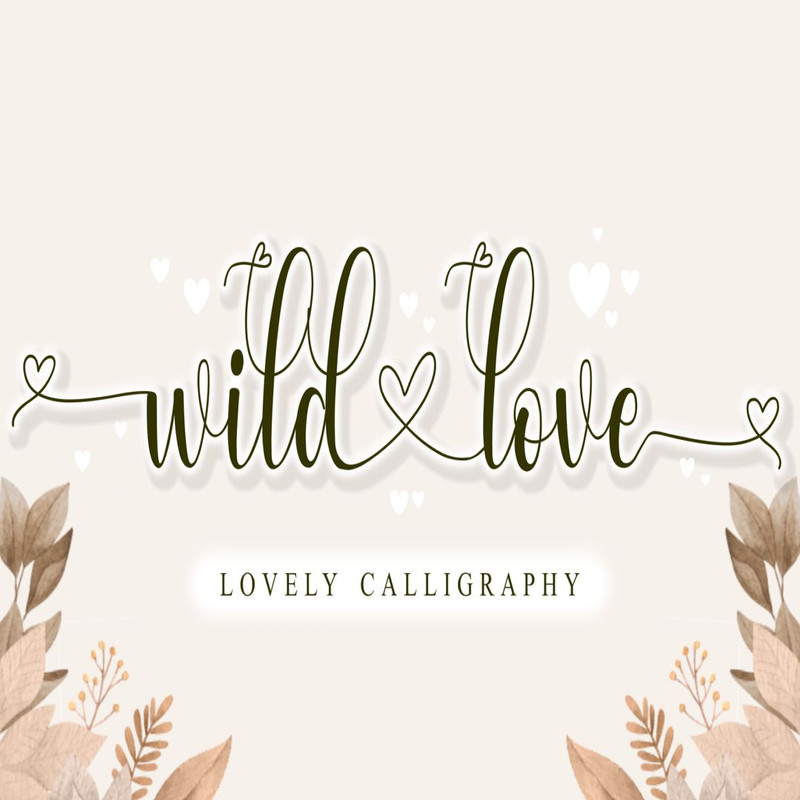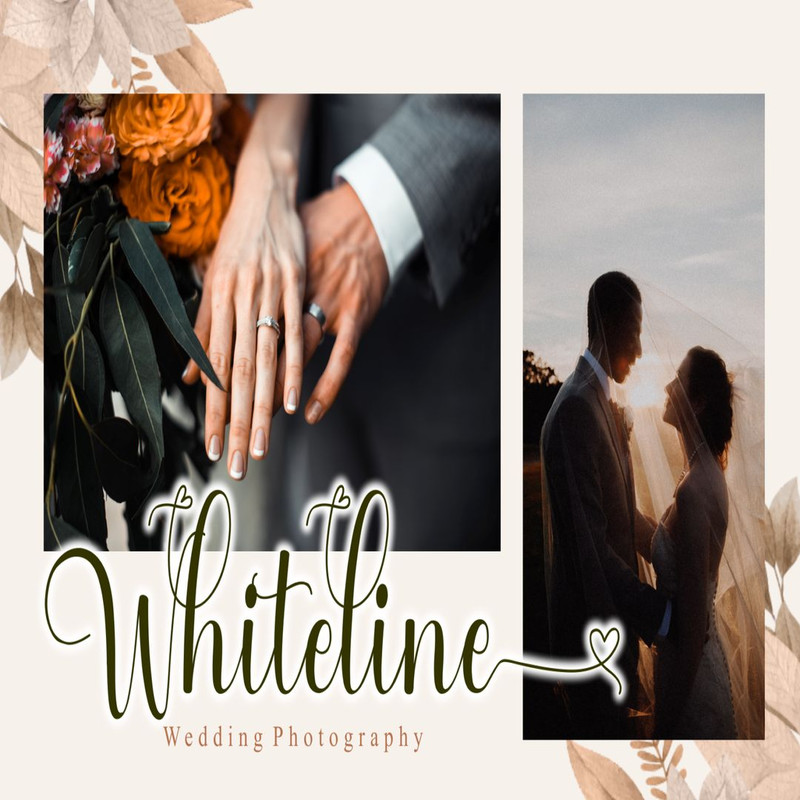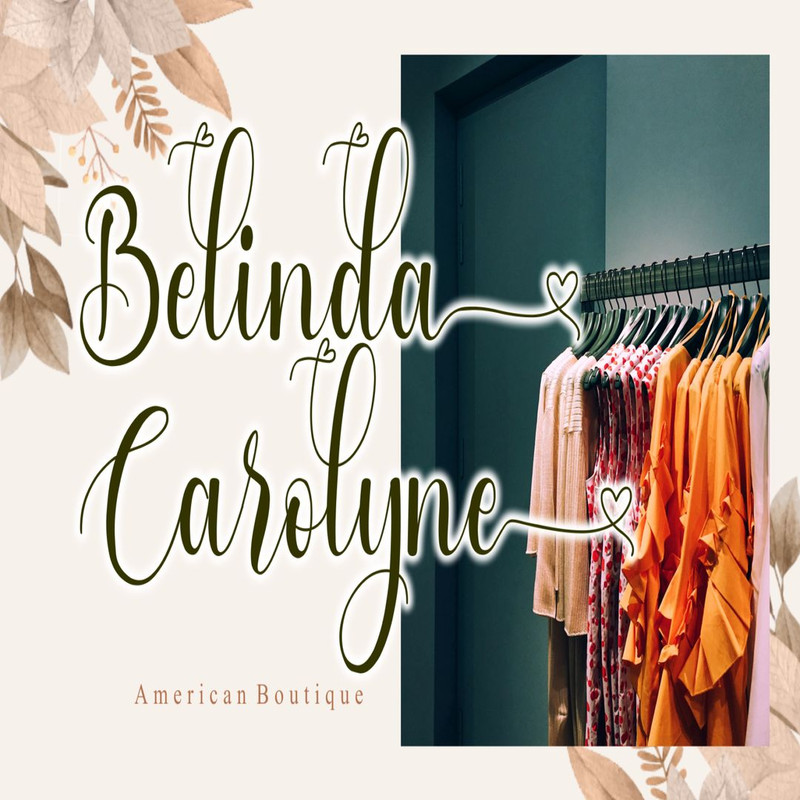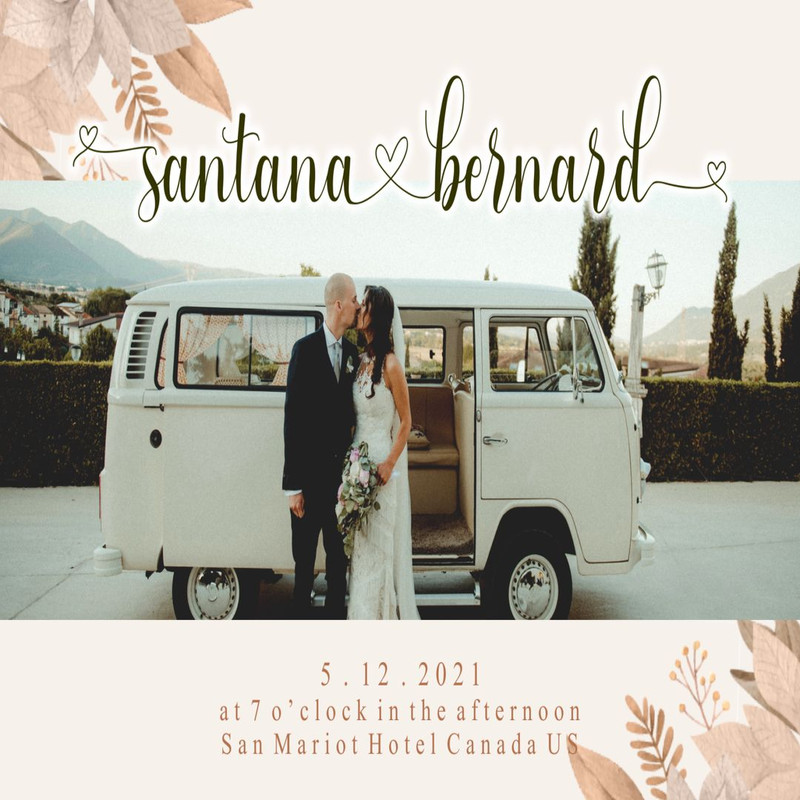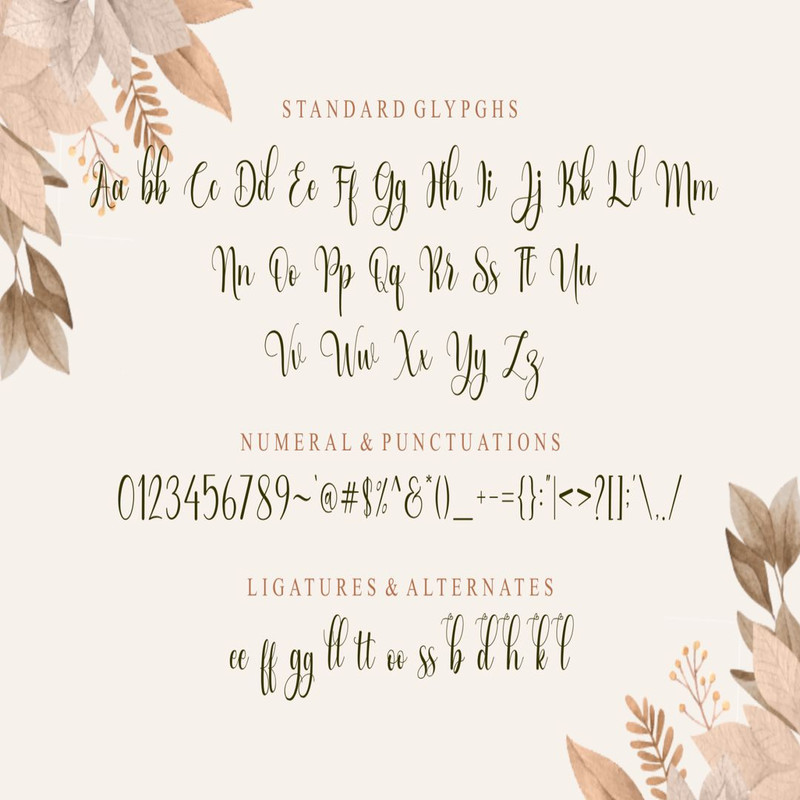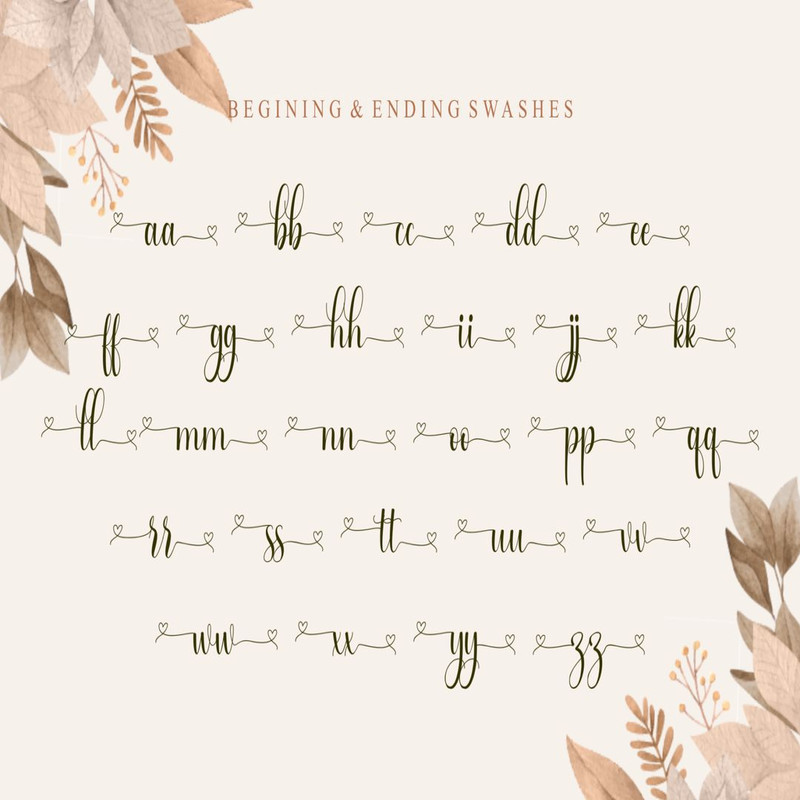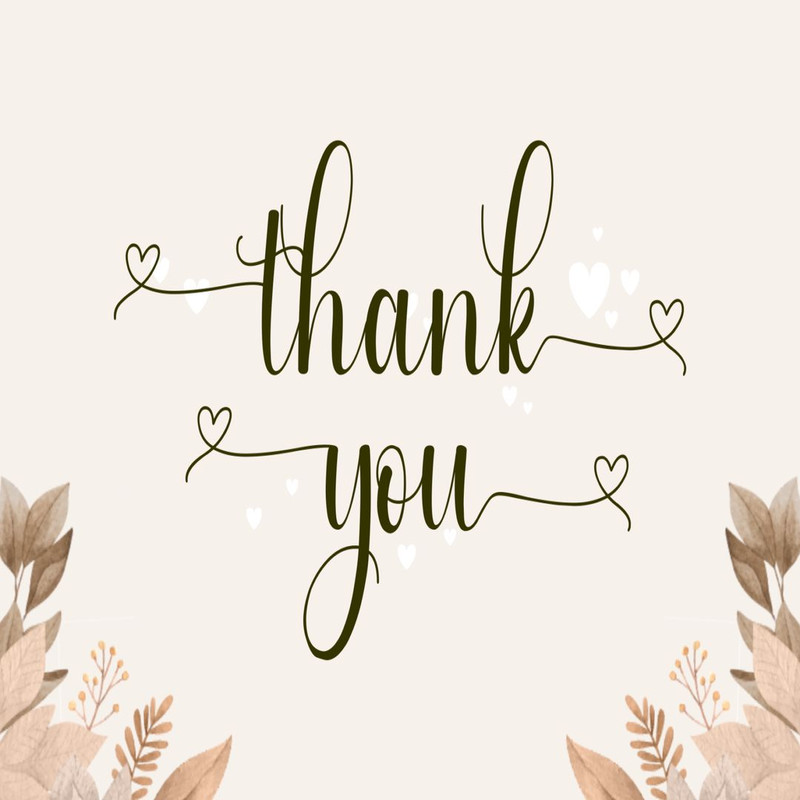
Wild Love – Lovely Calligraphy Trending Fonts - Digital Font
‘Wild Love’ is a beautiful font that is dominated by a symbol of love at the beginning and end of the swash as well as alternates that will represent your love for something, someone or anything so this font can present an attractive and beautiful design.
Wild Love – Lovely Calligraphy Trending Fonts - Digital Font
‘Wild Love’ is a beautiful font that is dominated by a symbol of love at the beginning and end of the swash as well as alternates that will represent your love for something, someone or anything so this font can present an attractive and beautiful design.